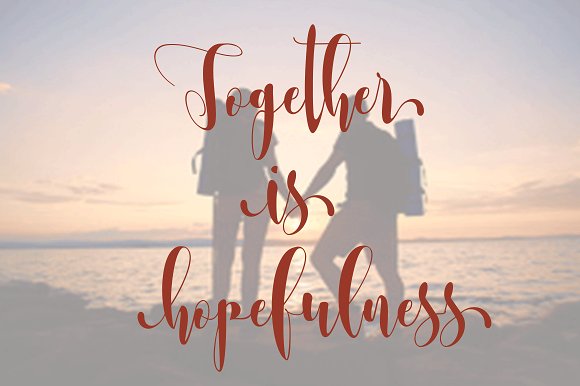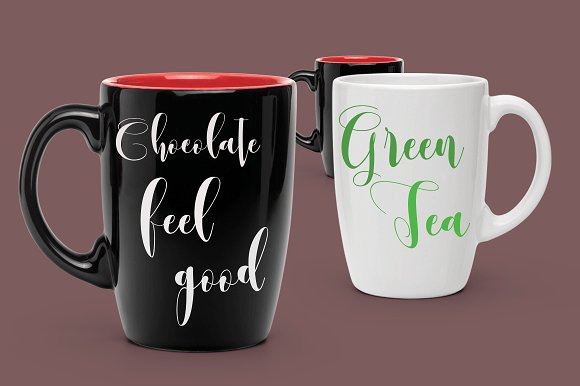
Gentle Script Font
Gentle font is new nice font with newstyle for any needed to make your happy with deverent style and gentle have tensile strength once for you. Gantle font include; Gentle [TTF] Gentle [OTF].
| Designer Name: | Triotone |
| Classification: | Brush Fonts, Script Fonts |